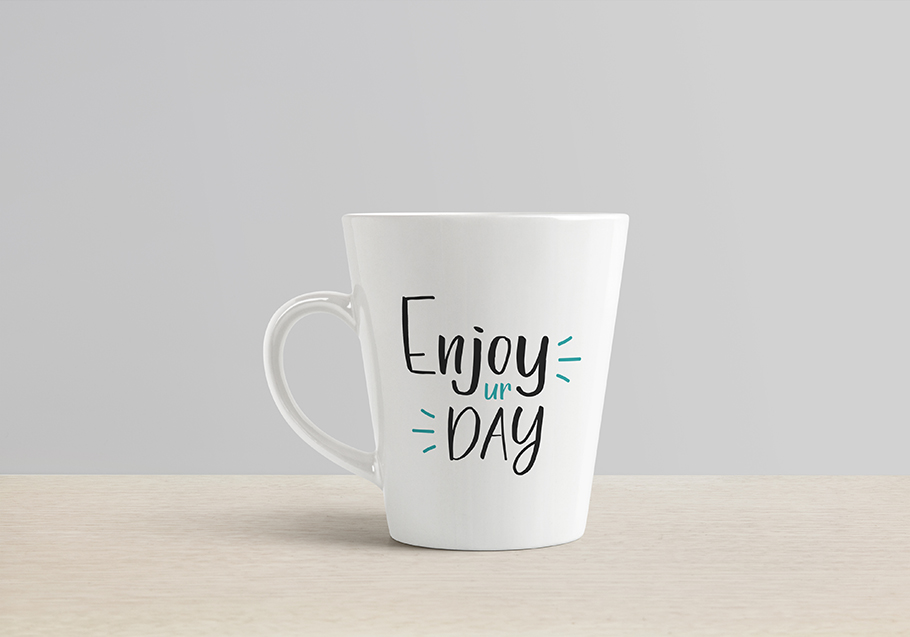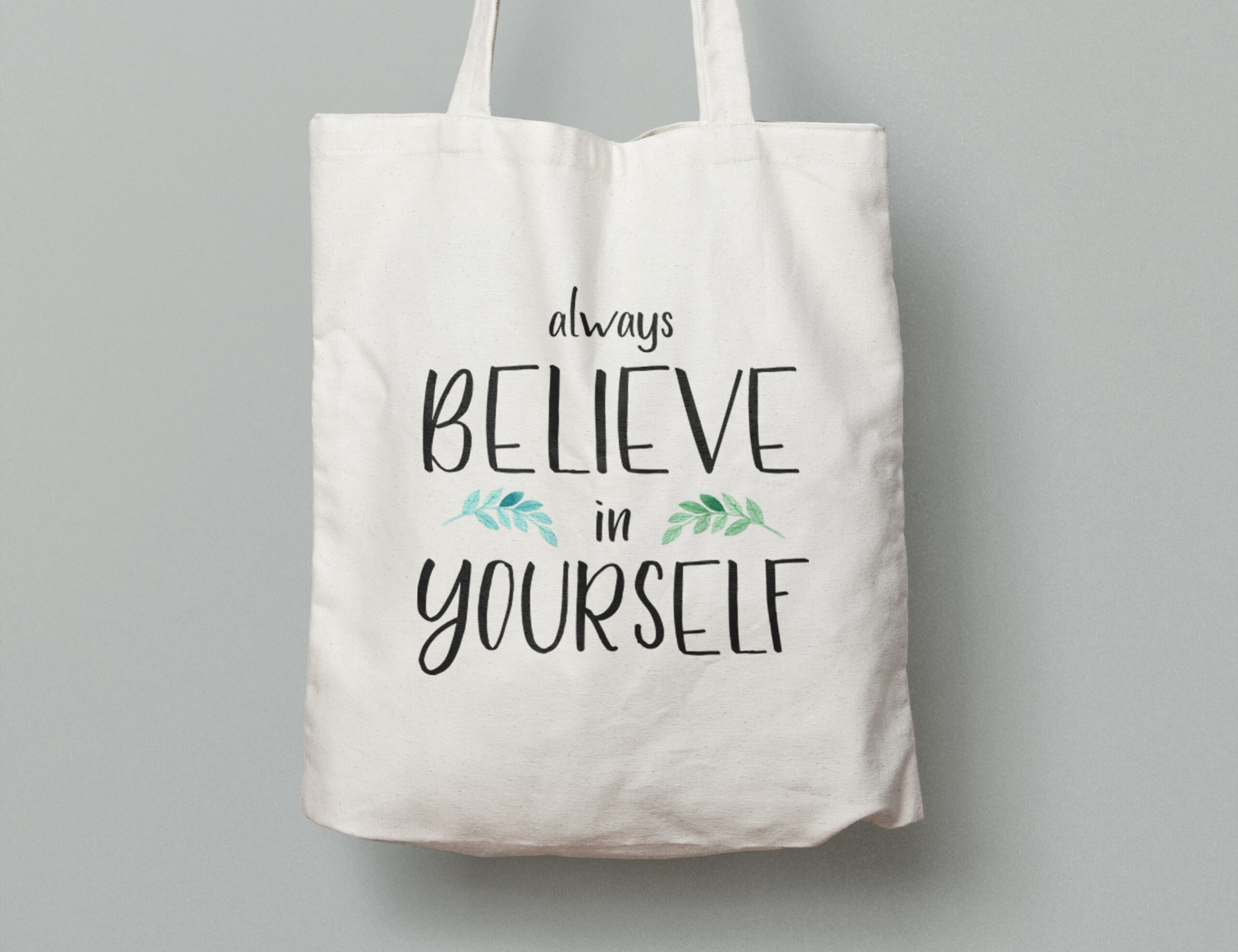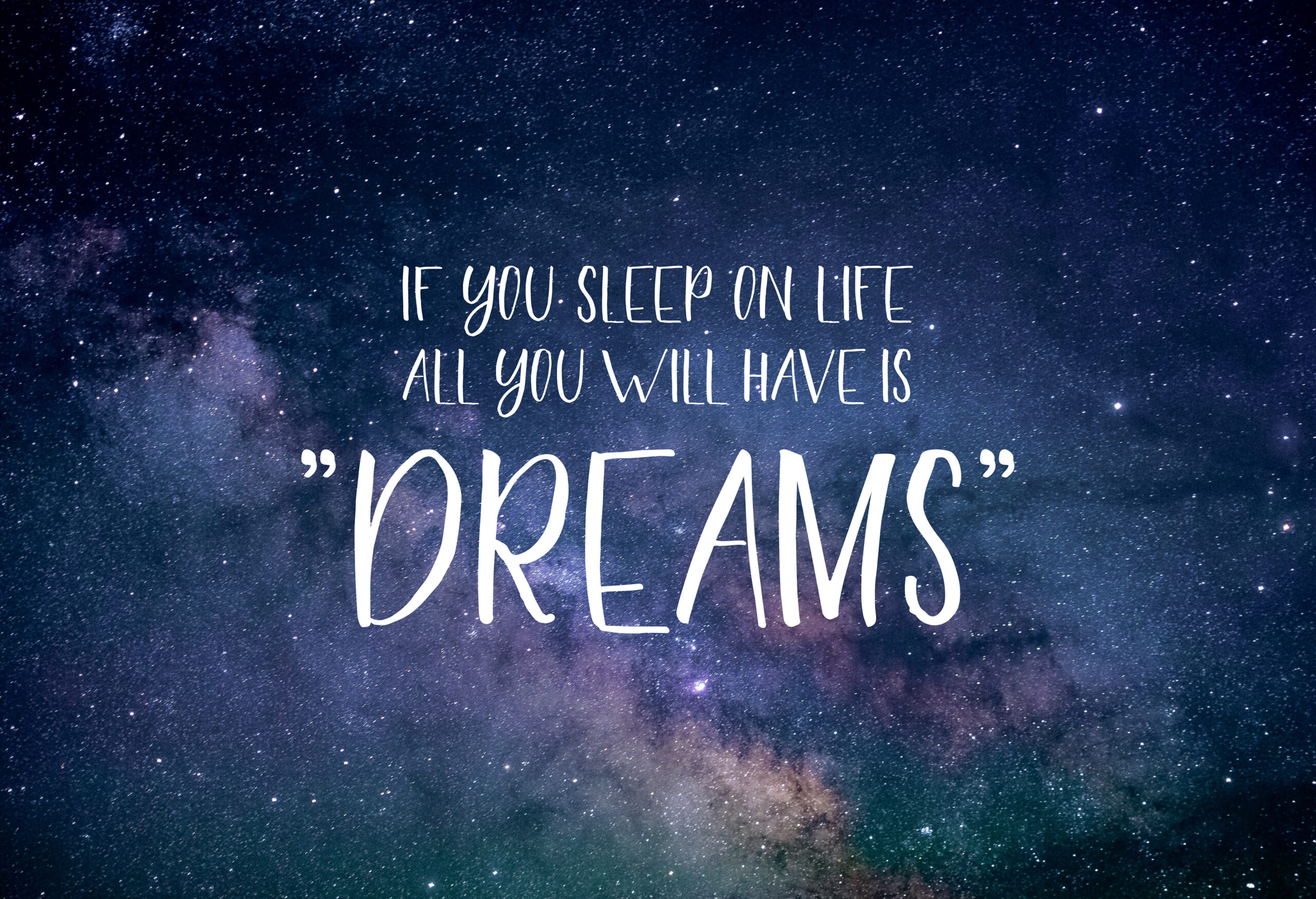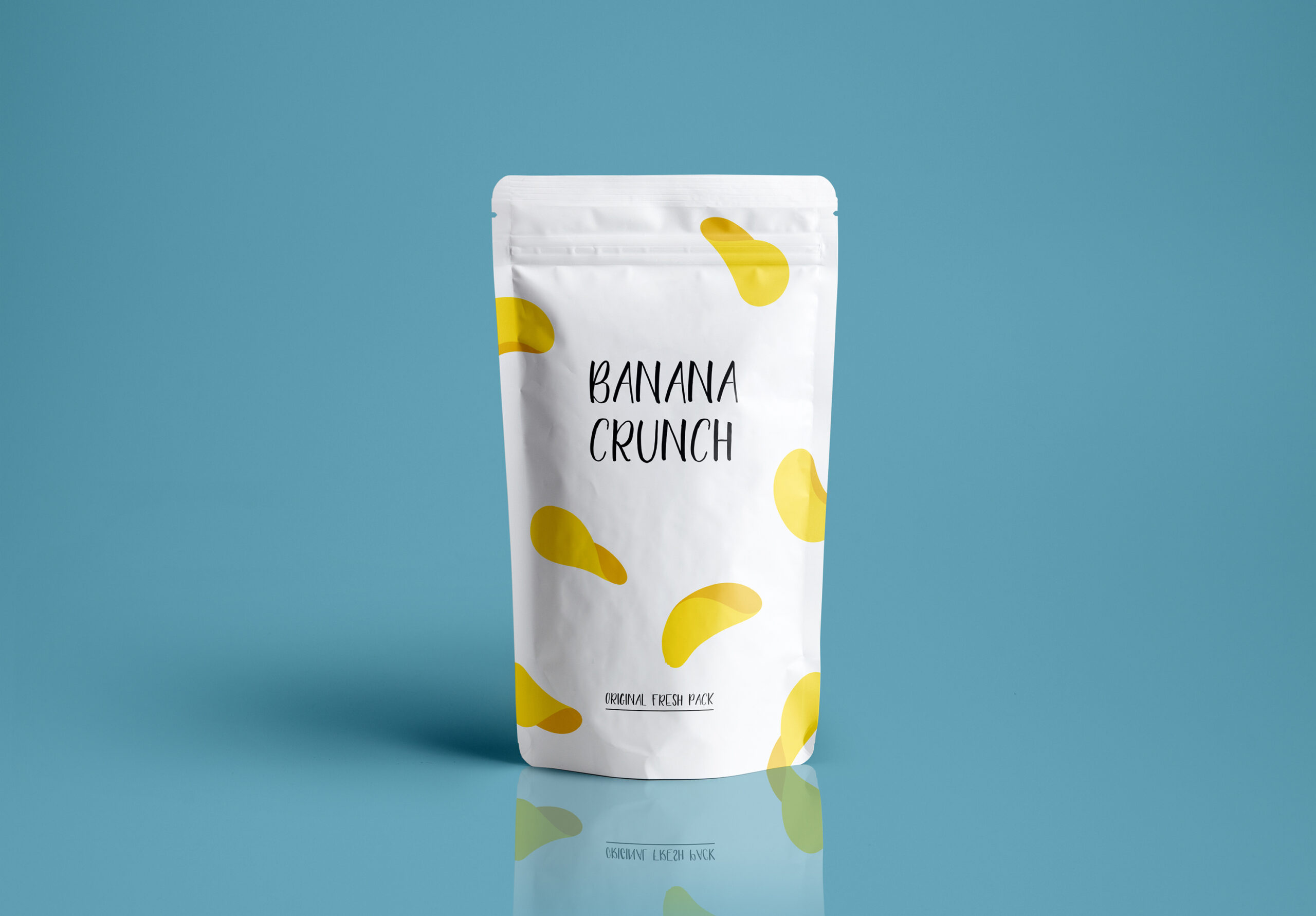
About Moonlight Font
Introducing Moonlight: A Captivating Brush Font for Modern Design
Are you in search of a font that exudes femininity, elegance, and modernity? Look no further than Moonlight, a stunning brush font designed to elevate your design projects with its captivating charm. Whether you’re working on branding, packaging, invitations, or any other creative endeavor, Moonlight is the perfect choice to infuse your designs with a touch of handwritten sophistication.
One of the defining features of Moonlight is its brush-style lettering. Each character is meticulously handcrafted with brush strokes, resulting in a fluid and organic appearance. This brush font captures the essence of the human touch, offering a sense of authenticity and warmth to your designs. The flowing curves and varied line weights create a dynamic and visually engaging typeface that stands out from the crowd.
Moonlight is designed with versatility in mind. Its elegant and fancy nature makes it suitable for a wide range of design applications, from fashion and beauty branding to wedding invitations, feminine blogs, social media graphics, and more. Whether you’re aiming for a romantic, whimsical look or a contemporary, trendy vibe, Moonlight adapts effortlessly to your creative vision.
The handwritten appeal of Moonlight adds a personal and intimate touch to your designs. It creates a connection with your audience, conveying a sense of individuality and care. The brush strokes carry an air of spontaneity and free-flowing energy, allowing your designs to exude a sense of creativity and authenticity. With Moonlight, you can effortlessly achieve that coveted handcrafted look without spending hours perfecting each letter.
One of the advantages of Moonlight is its versatility in different design contexts. It pairs beautifully with other fonts, both script and sans-serif, allowing you to create harmonious typographic compositions. You can use Moonlight as a standalone headline font or incorporate it as a complementary accent within your designs. Its graceful letterforms and unique character variations make it a valuable asset for adding flair and personality to your typography.
Whether you’re a professional designer or a creative enthusiast, Moonlight offers a user-friendly experience. Its clean and well-structured letterforms make it easy to read, ensuring legibility in both print and digital media. The font’s versatility and accessibility empower you to bring your design ideas to life, regardless of your level of expertise.
In conclusion, Moonlight is a captivating brush font that brings a touch of femininity, fancy, and modernity to your design projects. Its handcrafted appeal, versatile nature, and ease of use make it a valuable asset for designers seeking to add a handwritten charm to their work. Let Moonlight guide your creativity and elevate your designs with its elegant and stylish presence.